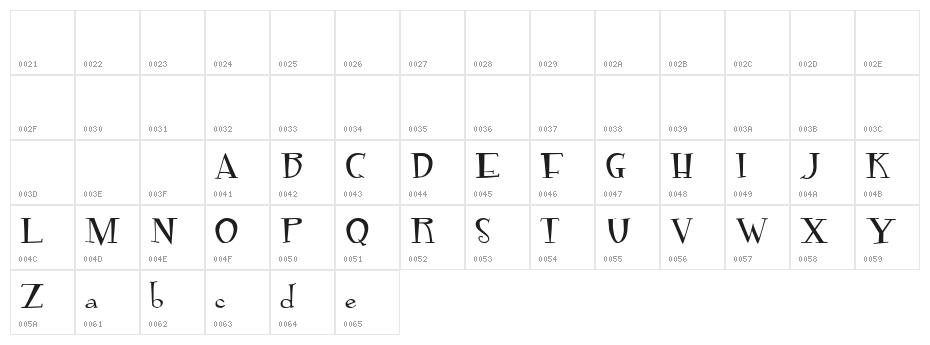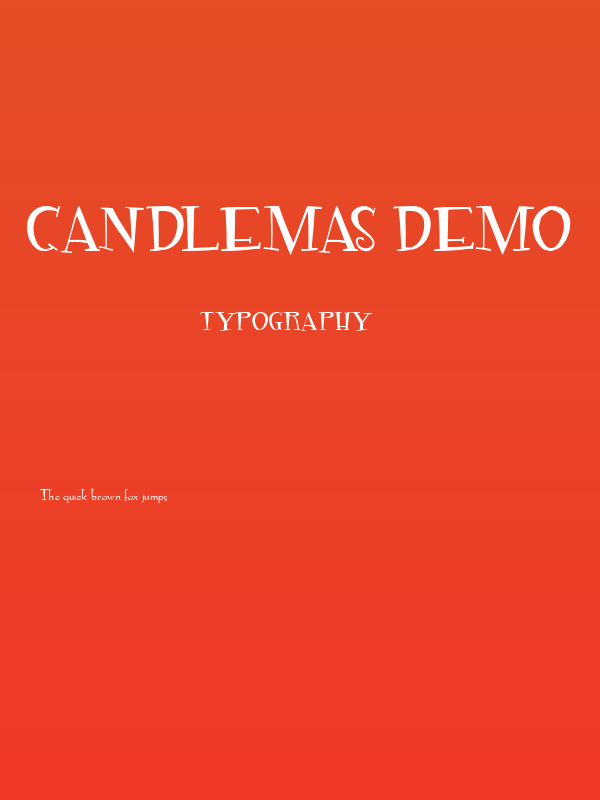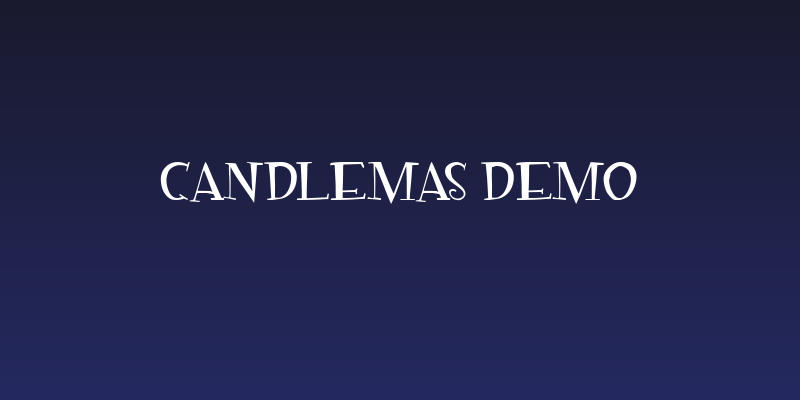
Candlemas Demo Font
Candlemas Demo Description
This font features a unique blend of medieval and modern elements, characterized by its sharp, angular serifs and slightly elongated letterforms. The uppercase letters exhibit a dramatic flair with high contrast between thick and thin strokes, giving them a distinctive, almost calligraphic appearance. The lowercase letters maintain a consistent style, with a slight tilt and playful curves that add a touch of elegance. The numerals and special characters follow the same design principles, ensuring a cohesive look across all glyphs. This font's intricate details and historical influences make it stand out, providing a sense of sophistication and artistic flair.
Overall StyleVintage
Proposed ProjectsIdeal for historical themed projects, book covers, invitations, and branding that requires a touch of elegance and tradition.